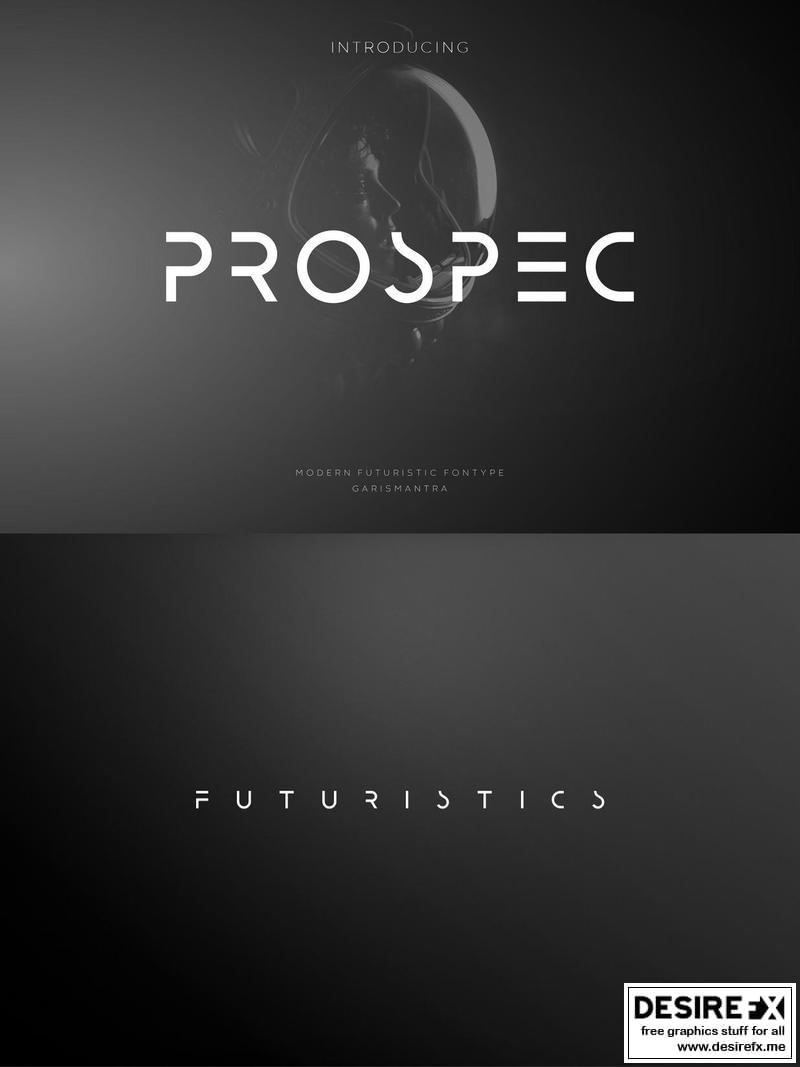
Prospec Light ZASBAZ5
Prospec is a modern, elegant and futuristic look font. This font would be ideal for writing web designs, business cards, or just about anything else that requires a unique touch. With a sophisticated concept and very elegant shape that will look modern on future technology designs, don’t hesitate to have this font.